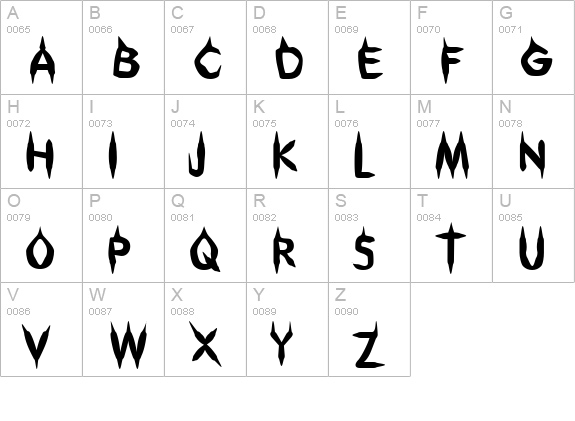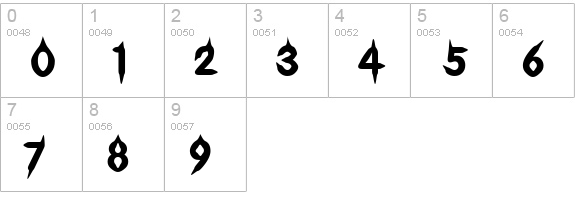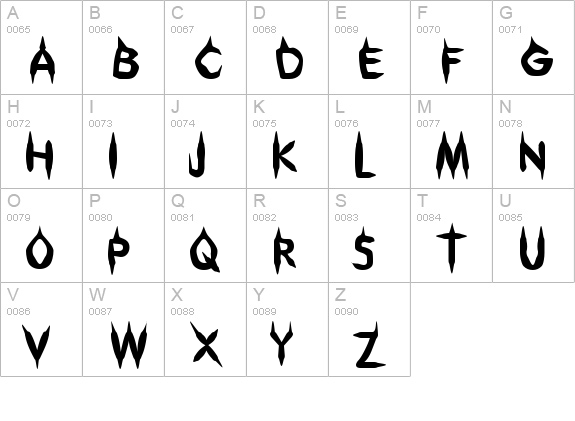
The Gibberish font is a whimsical display typeface that brings a playful and quirky touch to your designs. With its unique and irregular letterforms, Gibberish is perfect for adding a fun and creative flair to posters, packaging, and more. This font is freely available to download at FontsMarket.com, making it accessible for all your design projects. Let your imagination run wild with Gibberish and bring a touch of whimsy to your next creation.